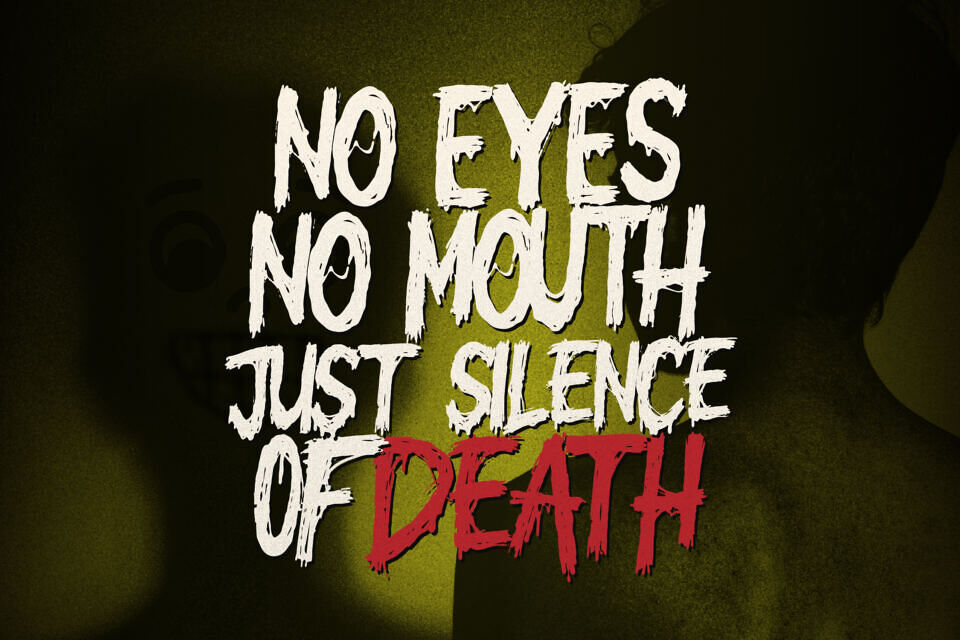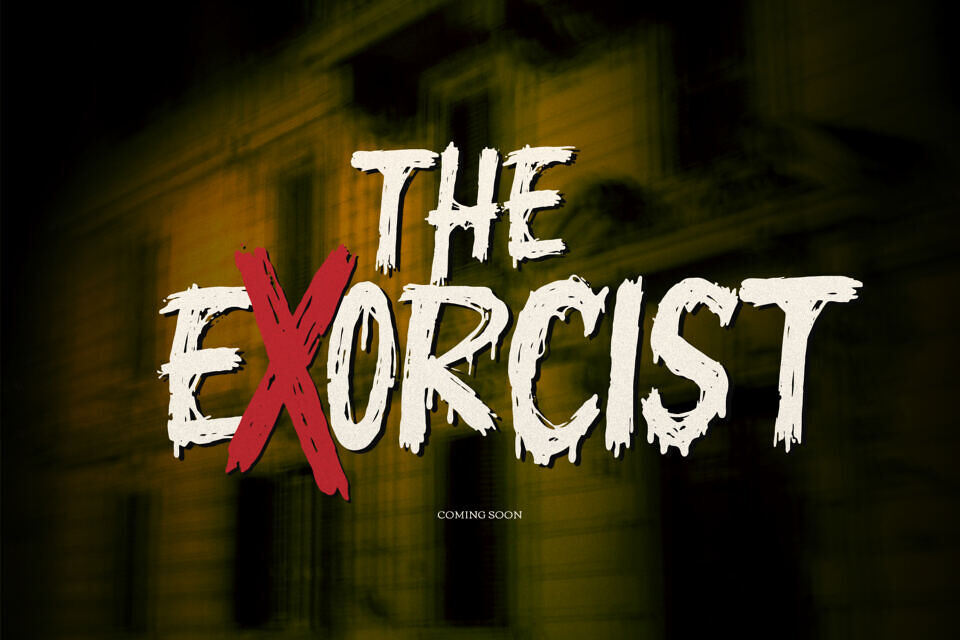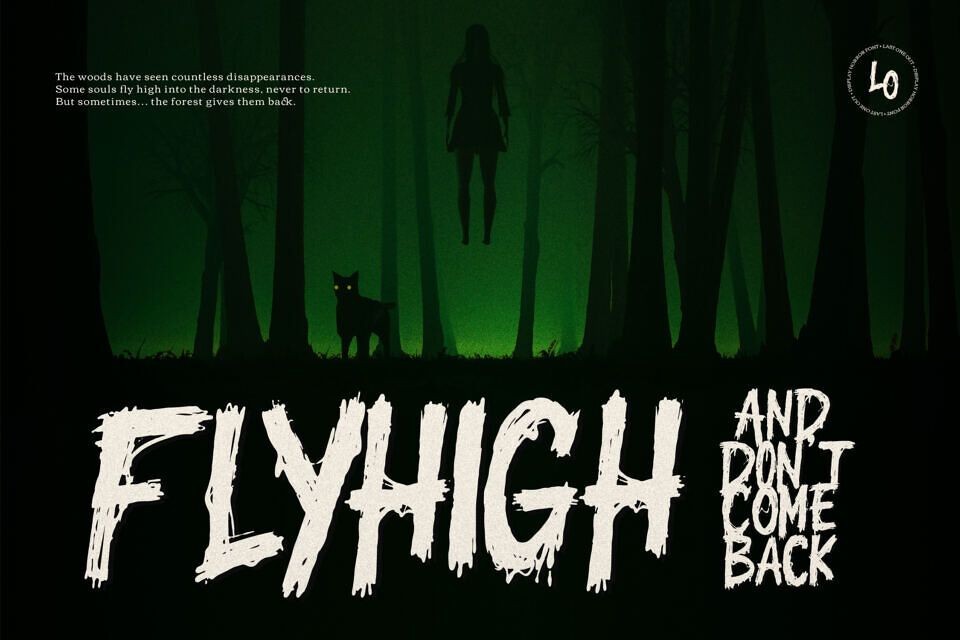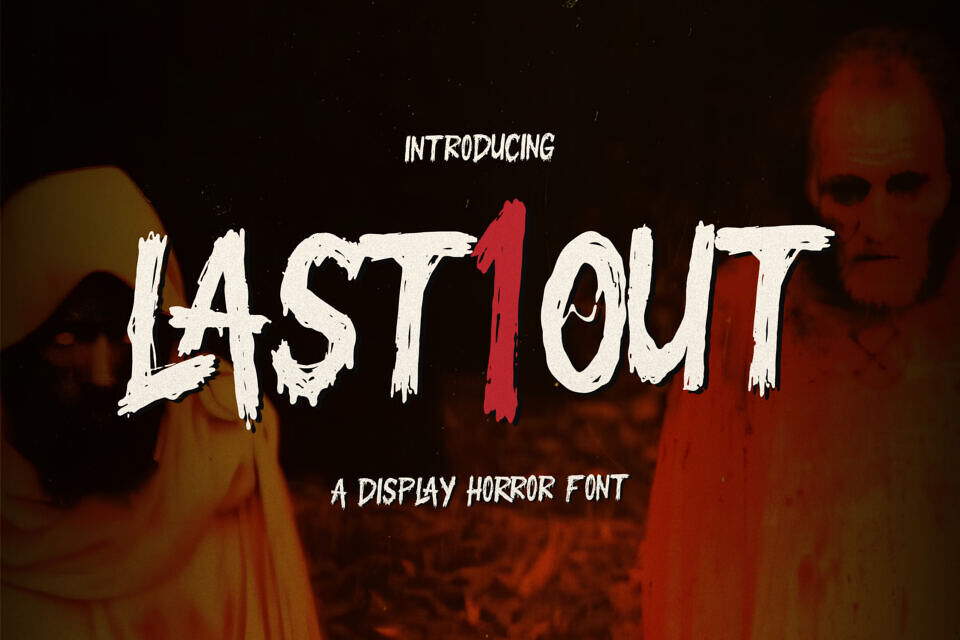
Last One Out Font
Created by Gracetype Studio, Last One Out is a sinister display font perfect for horror-themed projects. Its jagged, hand-drawn appearance and distressed texture evoke a sense of dread, making it ideal for movie posters, book covers, and apparel designs.
The font includes uppercase, lowercase, numbers, and punctuation, with multilingual and PUA-encoded support for versatile use. This unique typeface captures a chilling, suspenseful aesthetic that elevates any Halloween or mystery-related creative work.